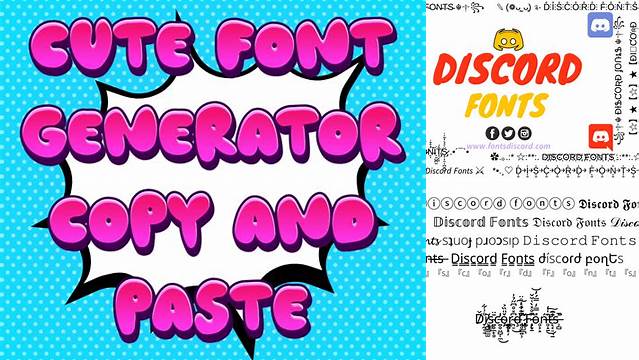
Cute Discord Fonts: Copy & Paste Guide For Unique Text
Introduction: Level Up Your Discord Game with Cute Fonts
Hey guys! Want to make your Discord messages stand out? Who doesn't, right? Discord is our digital hangout spot, and we all want to express our unique personalities there. Using cute fonts is a fantastic way to add some flair to your text and make your messages pop. Whether you're announcing game nights, sharing memes, or just chatting with friends, the right font can make all the difference. In this guide, we'll dive into the world of Discord fonts, showing you how to copy and paste those adorable styles that will make your server the envy of everyone. Think of it as giving your text a makeover – a super simple way to make a big impact! So, let's get started and explore how you can transform your Discord experience with just a few copy-pastes.
Why Use Cute Fonts on Discord?
So, why bother with cute fonts on Discord? Well, think of it this way: Discord is more than just a chat app; it's a digital space where we build communities, share experiences, and express ourselves. Default fonts can be a bit… well, default. They get the job done, but they don't exactly scream you. Using unique and cute fonts allows you to inject your personality into your messages. Imagine announcing a movie night with a bubbly, playful font, or sharing exciting news with a bold, eye-catching style. Fonts can convey emotions and set the tone, making your messages more engaging and fun. Plus, let's be honest, a creatively formatted message is just more likely to grab attention in a busy server. It's a simple way to stand out from the crowd and show off your style. Whether you're a streamer looking to brand your server or just someone who loves adding a personal touch, cute fonts are a fantastic tool in your Discord arsenal. They're easy to use, instantly effective, and a total game-changer for your digital communication.
Understanding Discord's Font Limitations
Before we dive into the fun part of copying and pasting cute fonts, it's important to understand how Discord handles text formatting. Unlike word processors or design software, Discord doesn't have a built-in font selector. You can't just drop down a menu and pick your favorite typeface. Instead, Discord uses a system called Markdown, which is a lightweight markup language. This means that to change the way your text looks, you need to use special characters and symbols. For example, putting asterisks around a word makes it italic, while double asterisks make it bold. However, Markdown's formatting options are limited to basic styles like bold, italics, underlines, and strikethroughs. So, how do we get those cute and fancy fonts we see all over Discord? The answer lies in Unicode characters. Unicode is a universal character encoding standard that includes thousands of symbols and characters, many of which look like different fonts. We can use these special characters to create the illusion of different fonts in our messages. This is why copying and pasting fonts works so well on Discord. You're not actually changing the font in the traditional sense, but rather using Unicode magic to display text in a stylish way. Knowing this limitation is key because it means we need external tools and websites to generate these cute font alternatives. But don't worry, it's super easy, and we'll walk you through it step by step!
Finding Cute Fonts: Online Font Generators
Okay, so we know Discord doesn't have a built-in font store, but that's where the internet comes to the rescue! There are tons of amazing online font generators that let you create cute and stylish text with just a few clicks. These tools work by converting your regular text into Unicode characters that resemble different fonts. It's like a secret code that Discord can read and display in a fancy way. Think of these font generators as your personal typography stylists, ready to transform your messages from plain to pizzazz! Most of these websites are super user-friendly: you simply type your message into a box, and the generator spits out a variety of cool font options. You can then copy and paste these generated fonts directly into your Discord chat. It's quick, easy, and totally free! Some popular font generators you might want to check out include LingoJam, Cool Fancy Text Generator, and YayText. Each site offers a slightly different selection of fonts, so it's worth exploring a few to find your perfect style. Whether you're looking for elegant cursive, playful bubble letters, or edgy gothic fonts, these generators have got you covered. In the next section, we'll walk you through the step-by-step process of using these generators and copying and pasting your new fonts into Discord.
Popular Font Generator Websites
When it comes to finding the perfect cute fonts for your Discord messages, you're in luck! There are several fantastic online font generator websites that make the process a breeze. Let's take a closer look at some of the most popular options:
- LingoJam: LingoJam is a classic choice for generating fancy text. It's incredibly simple to use: you type your text in the left box, and a variety of font styles appear in the right box. You can then easily copy and paste your chosen font directly into Discord. LingoJam offers a wide range of styles, from elegant scripts to quirky, playful fonts, making it a great all-around option.
- Cool Fancy Text Generator: This website lives up to its name, offering a plethora of cool and fancy text styles. What sets it apart is its real-time preview feature. As you type, the generated fonts appear instantly, allowing you to quickly scroll through the options and find the perfect match. It also has a handy feature that lets you create custom symbols and text decorations, adding even more flair to your messages.
- YayText: YayText is another excellent font generator that's super popular among Discord users. It offers a clean and intuitive interface, making it easy to find and copy the fonts you love. YayText also provides a live preview of how your text will look in Discord, which is incredibly helpful. Plus, it has a section dedicated to Discord-specific fonts, ensuring that your messages will display correctly.
These are just a few of the many font generator websites available. Each offers a slightly different selection of fonts and styles, so it's worth exploring a few to find your favorites. The best part? They're all free and incredibly easy to use, so you can start spicing up your Discord messages in no time!
Step-by-Step Guide: Copying and Pasting Fonts into Discord
Alright, guys, let's get to the nitty-gritty: how do you actually copy and paste those cute fonts into Discord? Don't worry, it's super simple, and once you've done it a couple of times, it'll become second nature. Here's a step-by-step guide to get you started:
- Choose Your Font Generator: First things first, head over to one of the font generator websites we talked about earlier, like LingoJam, Cool Fancy Text Generator, or YayText. Pick whichever one tickles your fancy – they all work pretty much the same way.
- Type Your Message: Once you're on the website, you'll see a text box where you can type your message. Go ahead and type whatever you want to say in your cute font. It could be a greeting, an announcement, a joke, or anything else!
- Select Your Font: As you type, the font generator will display your message in a variety of different font styles. Scroll through the options and find the one that you love the most. This is where you get to express your creativity and choose a font that perfectly matches your message and your personality.